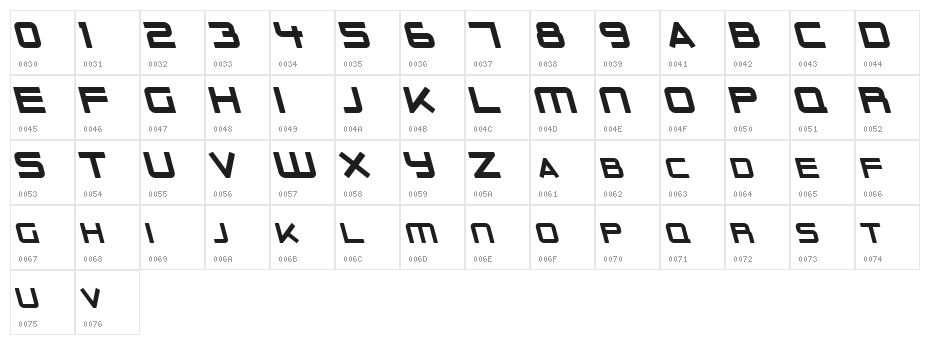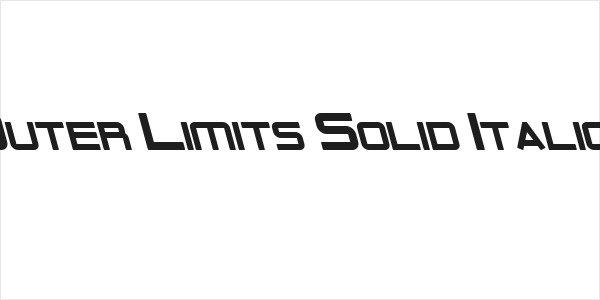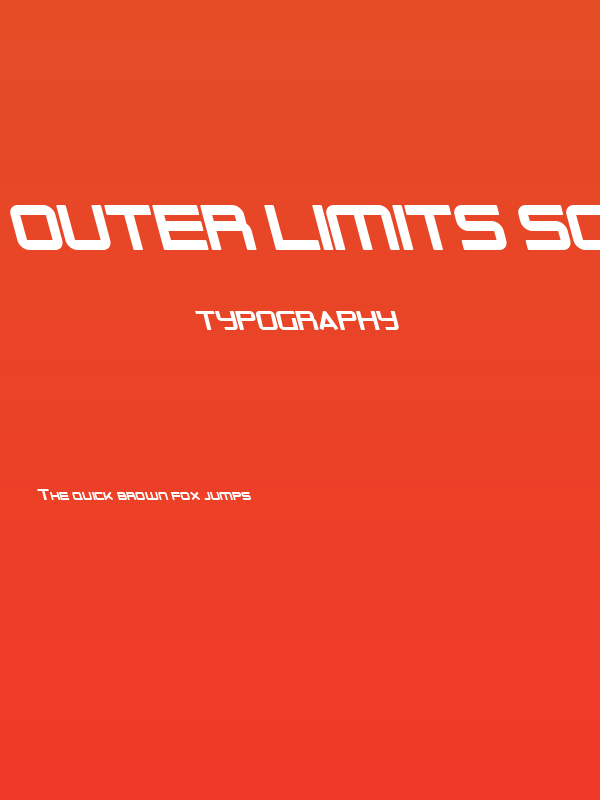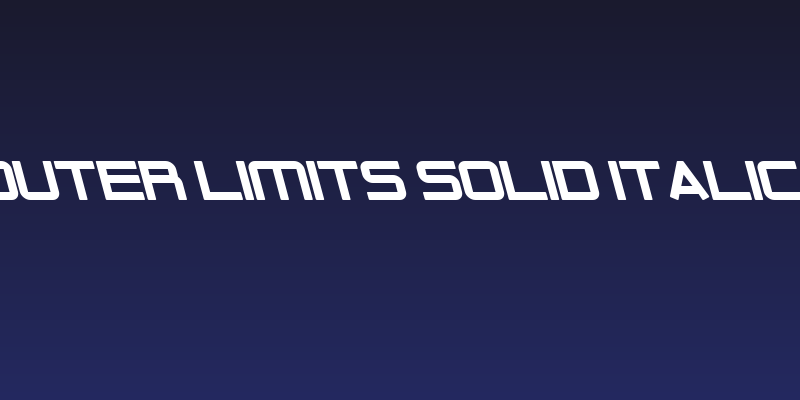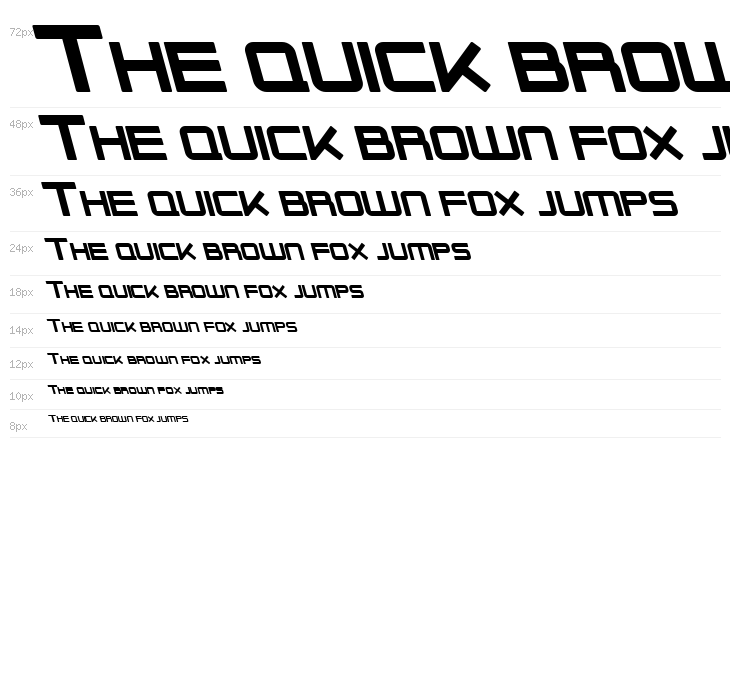
Outer Limits Solid Italic Font
Outer Limits Solid Italic Description
This font features a bold, futuristic style with a distinct italic slant, giving it a dynamic and forward-moving appearance. The characters are constructed with solid, geometric shapes, emphasizing a modern and technological aesthetic. The uppercase and lowercase letters maintain a consistent design, with angular edges and a uniform stroke width that enhances readability. The numerals and special characters follow the same design principles, ensuring a cohesive look across all elements. The overall design is sleek and contemporary, making it suitable for projects that require a cutting-edge and innovative feel.